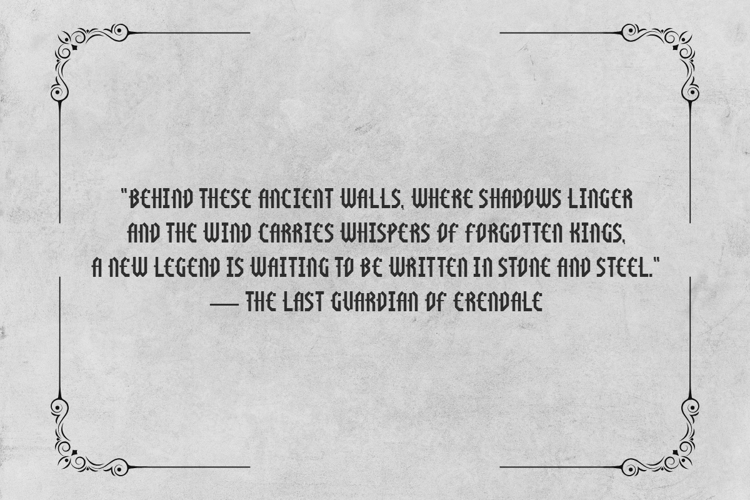
Erendale Font
Erendale is a bold and angular display typeface inspired by ancient runes, medieval scripts, and the raw power of the North. With sharp strokes, geometric precision, and a heavy Gothic presence, this font evokes the feeling of forgotten legends, icy mountains, and warrior chants echoing through the halls of stone. Perfect for fantasy book covers, heavy metal album art, game titles, or any design that needs to feel epic, mystical, and powerful.